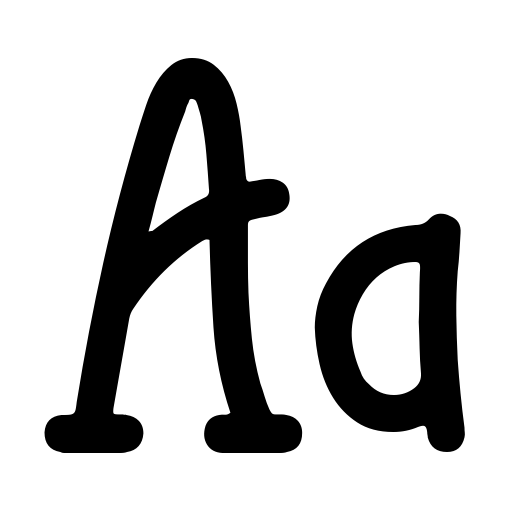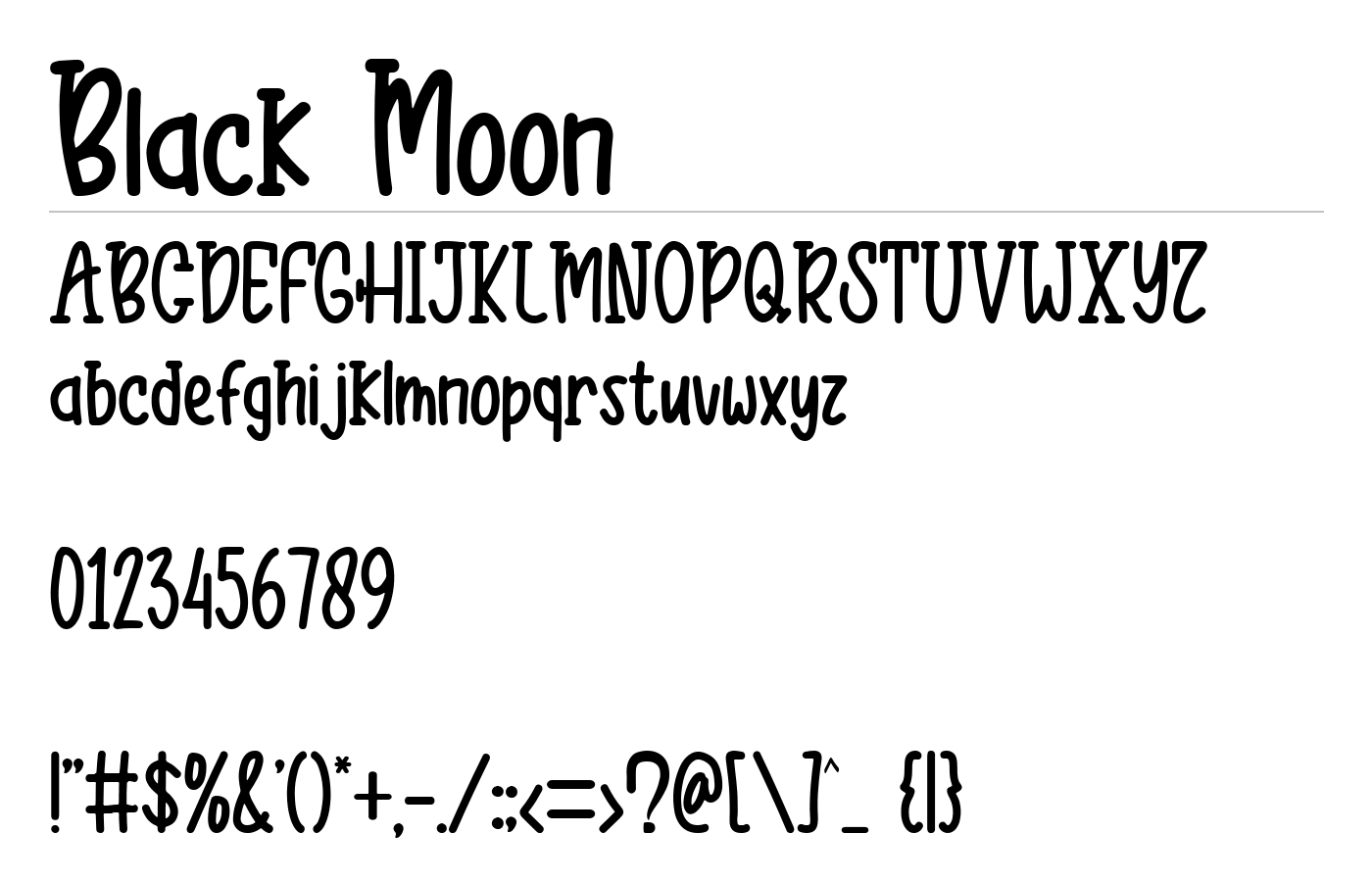
Black Moon is a playful, hand-drawn sans serif font with a tall, narrow stature and casual, irregular strokes that give it a friendly and informal feel. Its slightly condensed letterforms with quirky curves and lively details make it ideal for creative branding, children's books, or any design seeking a warm, approachable vibe. This font works well for headlines, logos, and packaging where a unique, whimsical character is desired.
Black Moon Font
About Black Moon Font